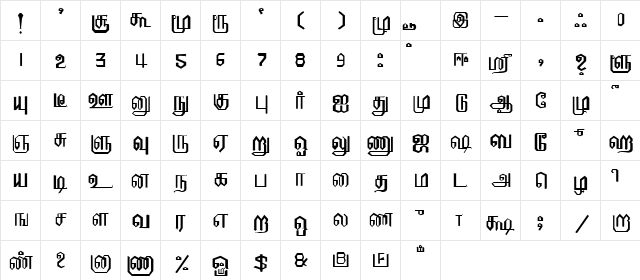
EELANADU by Aharam Fonts
Design Context for EELANADU Typeface
EELANADU offers clean, dependable letterforms without strong stylistic allegiance, making it a practical choice for designers who need flexibility.
Pro Tip: Use EELANADU in both headline and body roles to test its range before committing to a single application.